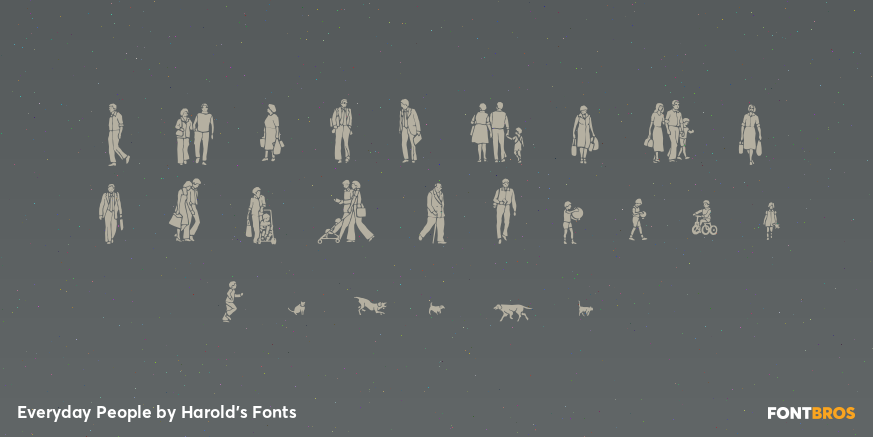
Everyday People
Font Family by Harold's Fonts
Everyday People is a pair of dingbat fonts inspired by old architectural illustration materials. Use them to populate your text and illustrations. Comes in Sun and Shade versions. Upper- and lowercase positions produce flipped designs for easier use.